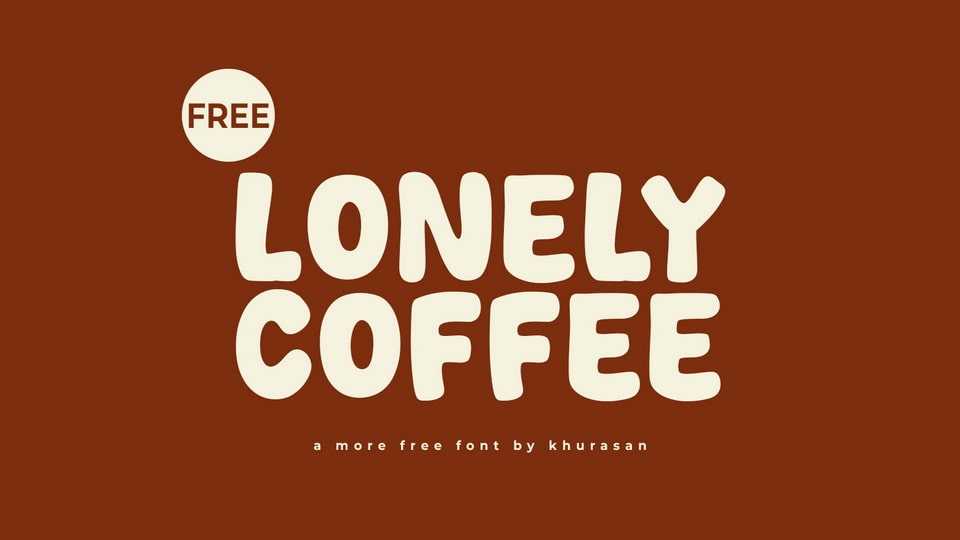
Download Lonely Coffee font, a friendly and smooth hand-crafted font that radiates warmth and approachability. It features gentle, flowing letterforms with soft curves and a natural, hand-drawn feel.